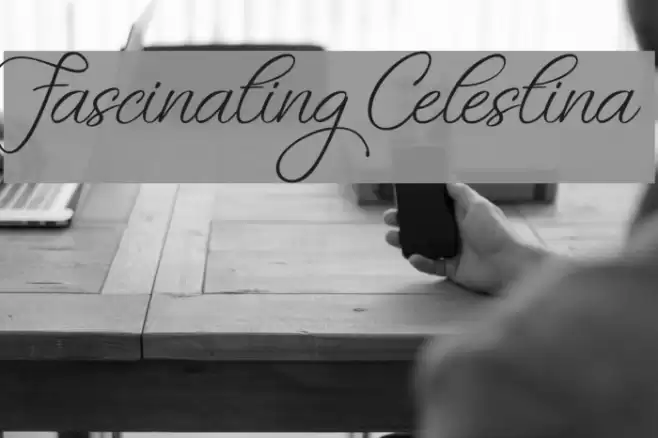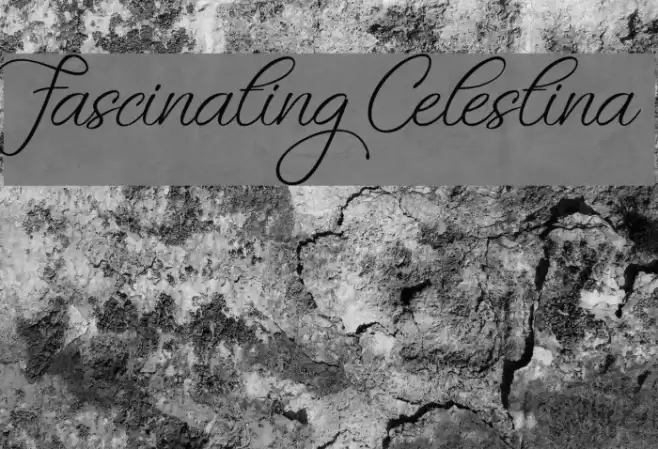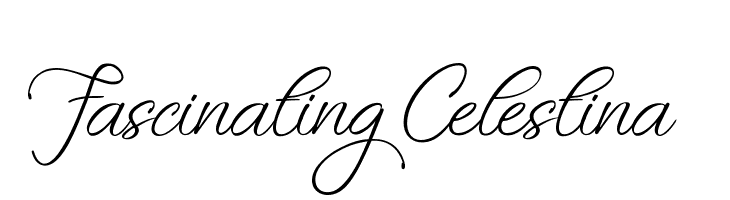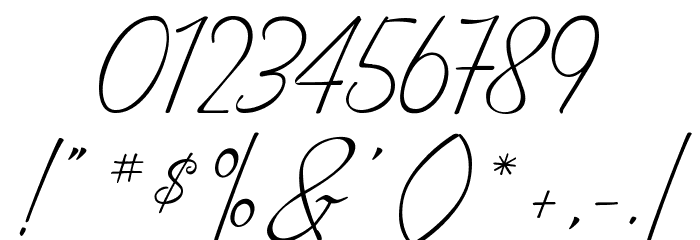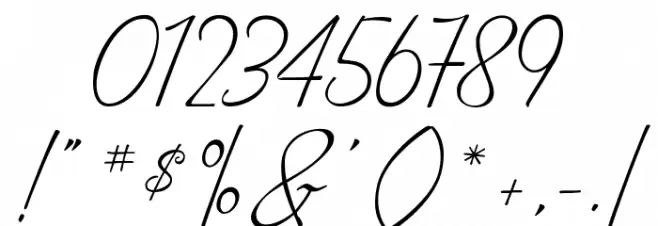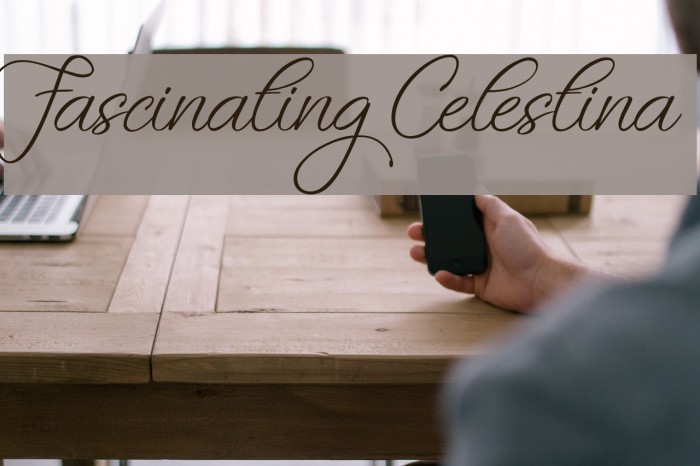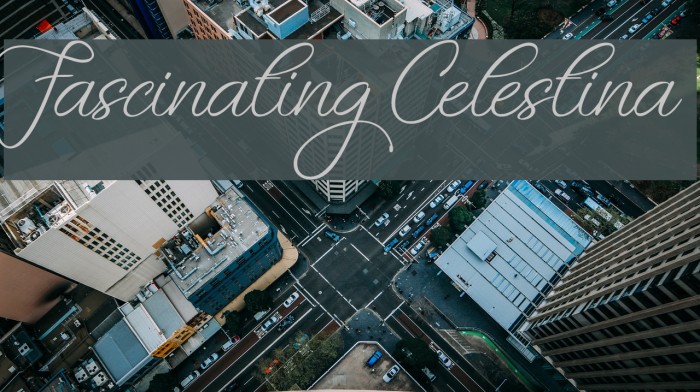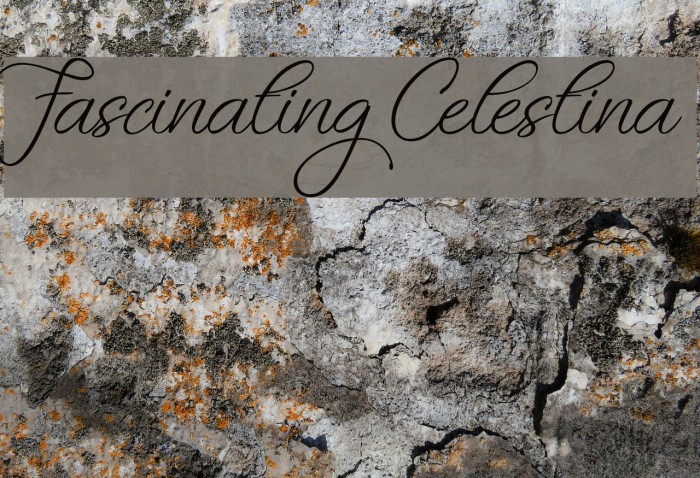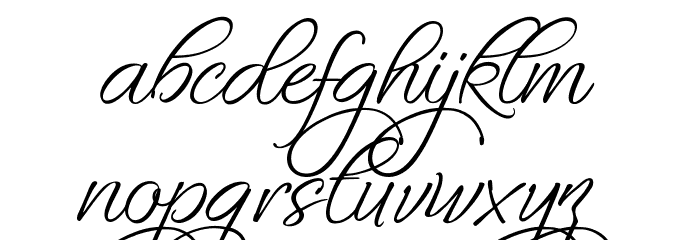
Fascinating Celestina
This elegant script font features flowing, cursive letters with intricate loops and swashes, giving it a sophisticated and artistic appearance. The uppercase letters are particularly ornate, with extended flourishes that add a sense of grandeur. The lowercase letters maintain a consistent style, with smooth connections and a graceful flow. The numerals are stylish and complement the overall aesthetic, while the special characters are designed to match the font's decorative nature. This font exudes a sense of refinement and is perfect for projects that require a touch of elegance and class.
An elegant script font with flowing cursive letters and intricate swashes.
- Proposed Projects: Ideal for wedding invitations, elegant branding, greeting cards, and luxury packaging.
- Category: Script
- Overall Style: Decorative
- Use Case: Logos, Invitations, Decorative text